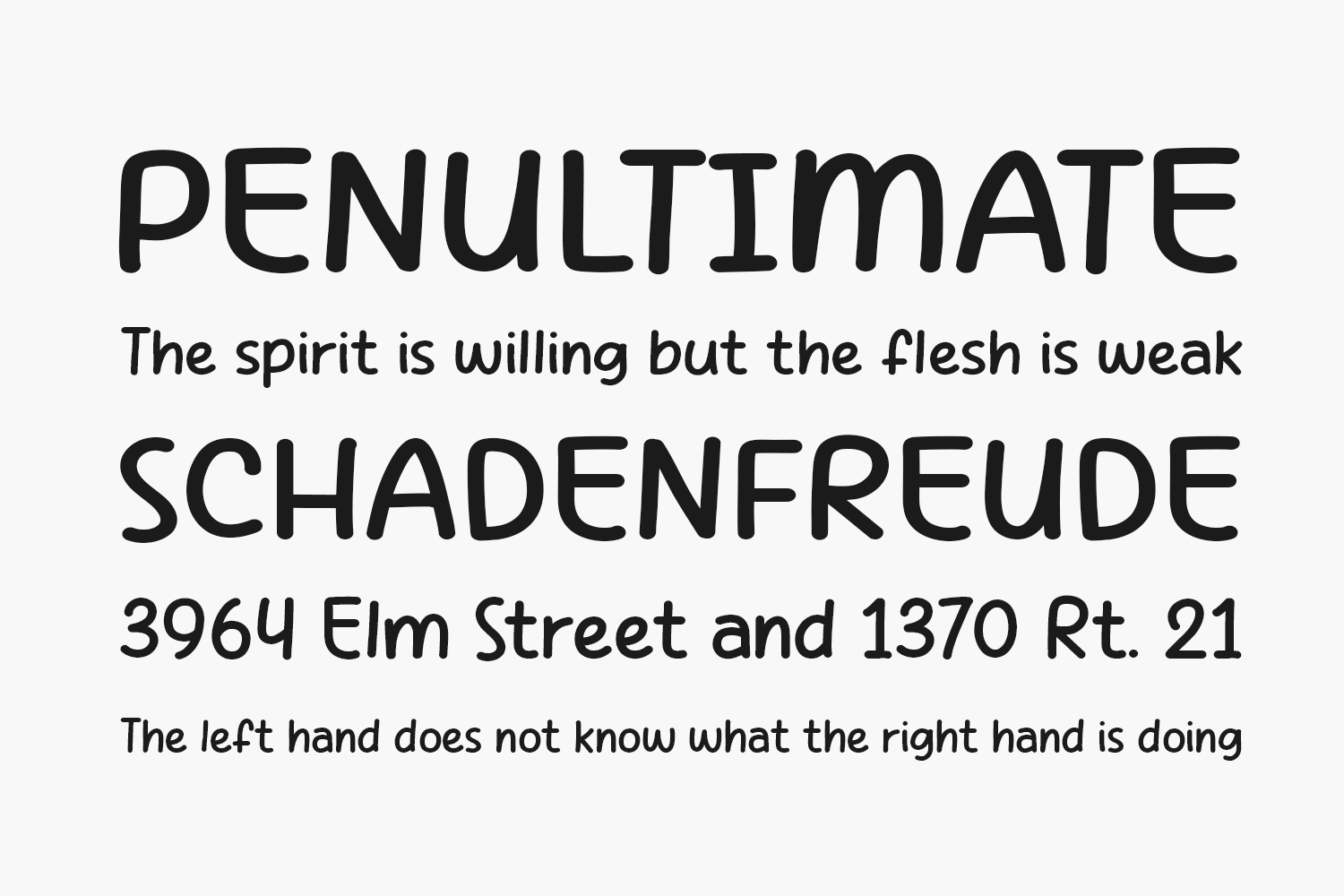
Introducing Info Story Free Font, a contemporary and stylish handwriting font ideal for posters, logos, magazines, book covers, banners, and beyond! Elevate your designs with this incredible font and witness how it effortlessly enhances your creative projects. Its versatility ensures seamless integration into a diverse range of projects, making it a must-have for making your ideas shine. Download the font for free if you need it for personal or commercial use.